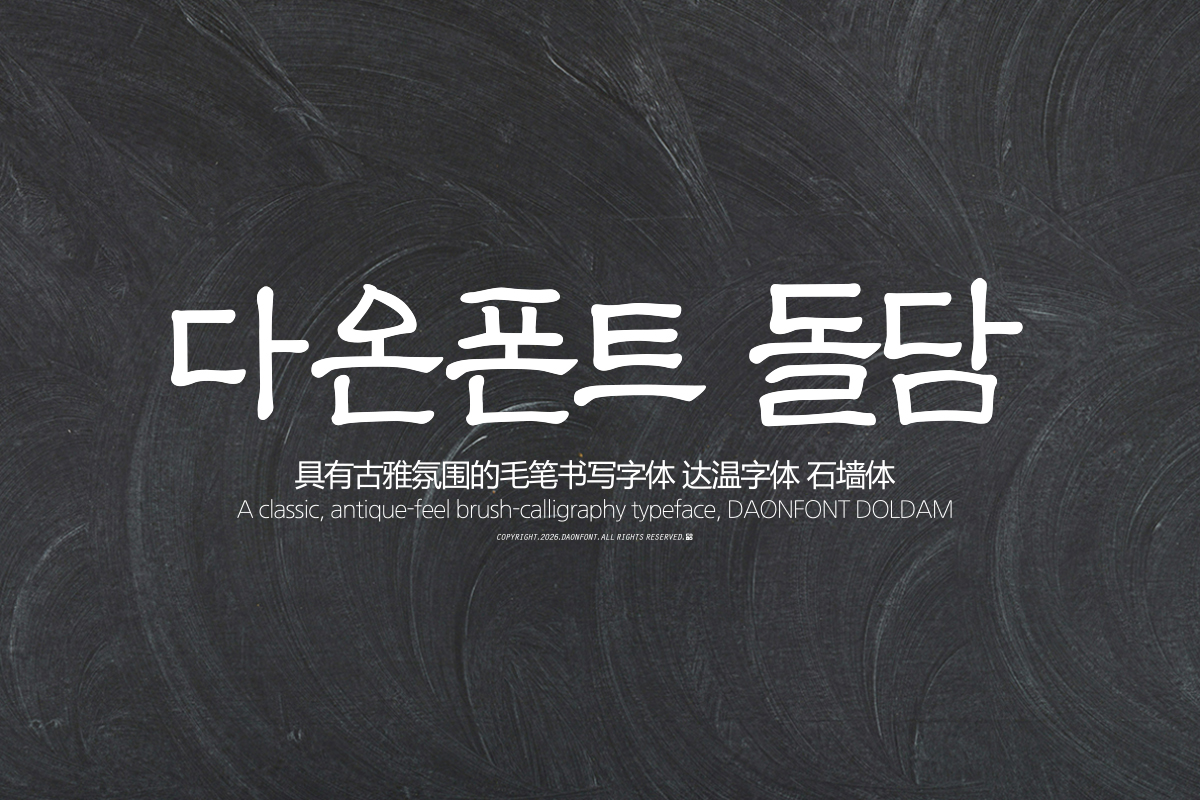
DAON DOLDAM(M)
'DOLDAM' is a Hangul typeface that captures both a calligraphic style evoking old-world sentiment and a clean, understated atmosphere. It embodies a tranquil sensibility, as if time were slowly flowing through ancient stone walls, conveying a calm yet profound impression to the viewer. With its unadorned, natural forms and affectionate brushstrokes, it is a typeface well-suited for designs that feature a traditional yet comfortable vibe.